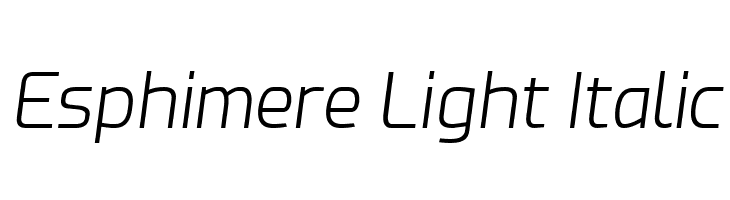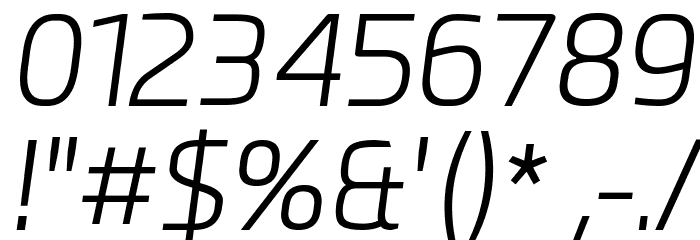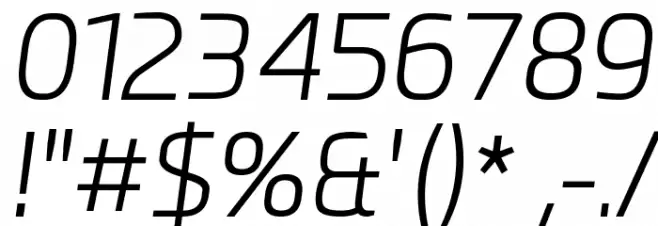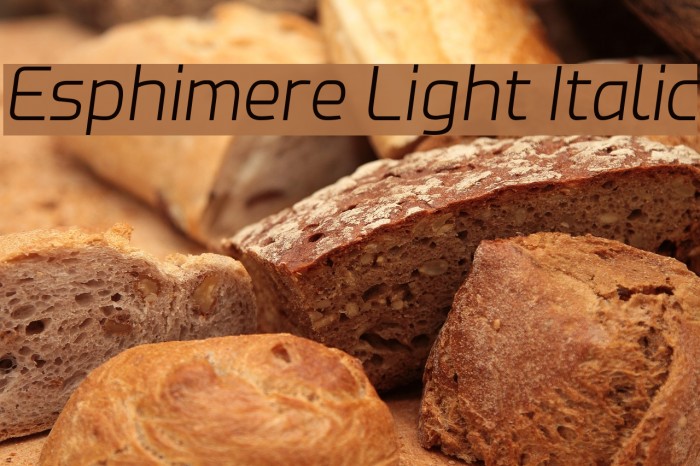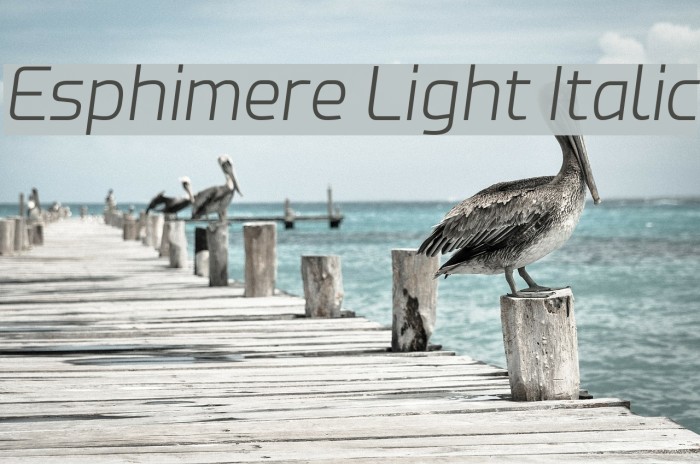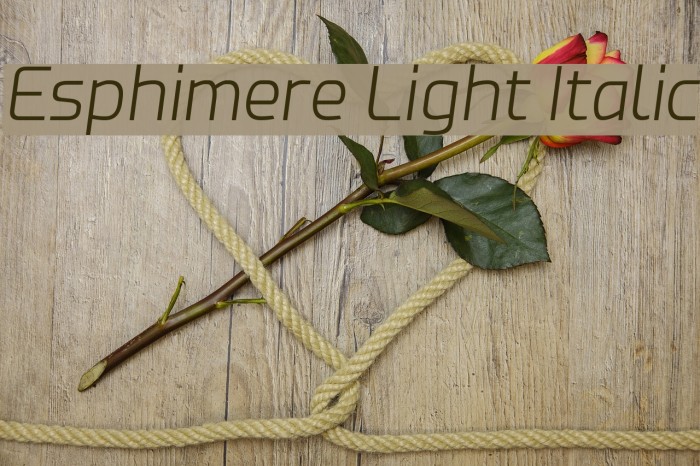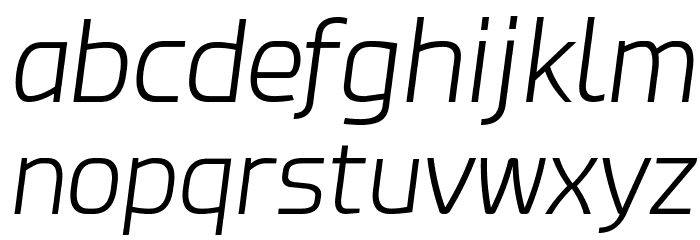
Esphimere Light Italic Font
Esphimere Light Italic Description
This font exhibits a sleek and modern design with a light and airy appearance. The characters are slightly italicized, giving a sense of motion and elegance. The strokes are consistent and smooth, with a uniform thickness that contributes to its readability. The overall design is clean and minimalistic, making it suitable for contemporary applications. The spacing between characters is balanced, ensuring clarity and legibility across various sizes. This font's style is versatile, lending itself well to both digital and print media.
| Use Case | Headlines, Body text, Logos |
| Proposed Projects | Ideal for modern branding, digital interfaces, editorial design, and minimalist posters. |